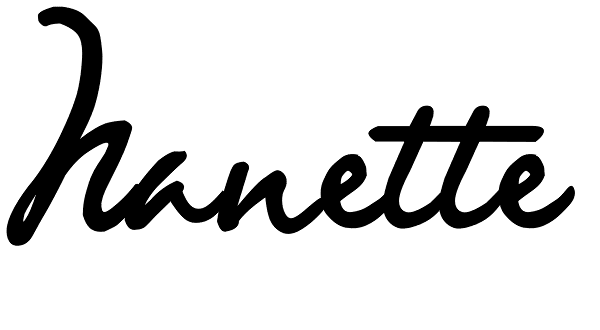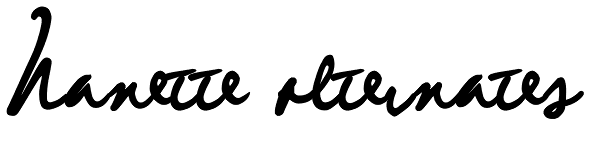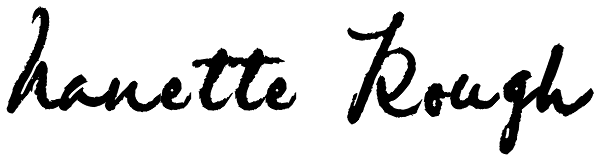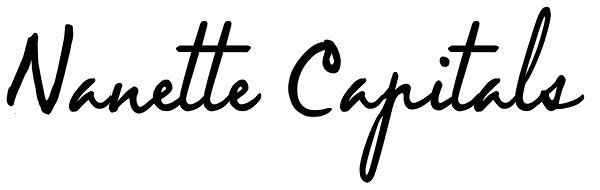
Nanette
Nanette is a connected script based on my mother’s handwriting. Nanette Alternates contains substitute forms that add spontaneity and personality to the regular font. Nanette Capitals contains simpler, block uppercase characters and taller ascenders...
Nanette
Nanette Alternates
Nanette Rough
Nanette Capitals